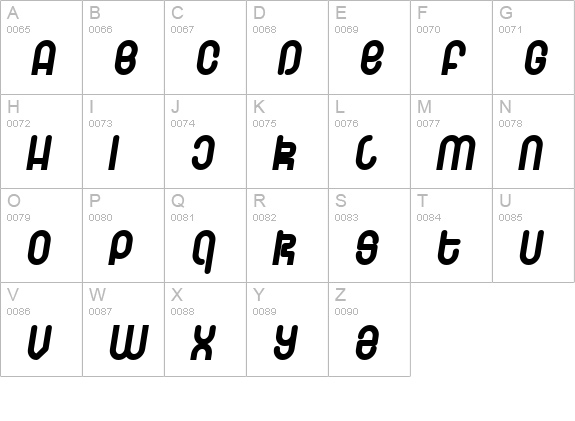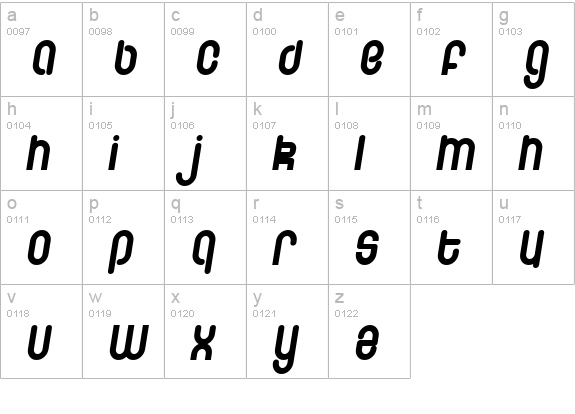
Schmotto Plotto Font Details
Introducing Schmotto Plotto font, a stunning typeface that effortlessly merges elegance with modernity. This exquisite font presents a harmonious balance of sleek lines and intricate details, captivating the eye and commanding attention in any design project. Schmotto Plotto font features a unique blend of bold and delicate strokes, resulting in a visually striking display that is both sophisticated and versatile. Its clean and timeless design makes it ideal for a wide range of creative applications, from branding and advertising to editorial designs and social media graphics. This extraordinary font is not only visually appealing, but it also offers practicality and ease of use. With its extensive character set, Schmotto Plotto font supports multiple languages, ensuring that your message can be communicated effectively to a global audience. And here's the best part – Schmotto Plotto font is freely available to download at FontsMarket.com. This means that you can elevate your designs without any additional cost, making it an invaluable asset for both professional designers and enthusiasts alike. With Schmotto Plotto font, you have the power to transform your creative vision into reality. Its versatility and timeless elegance will undoubtedly make a lasting impression on any project. Download this remarkable font today and let your designs speak volumes with style and sophistication.